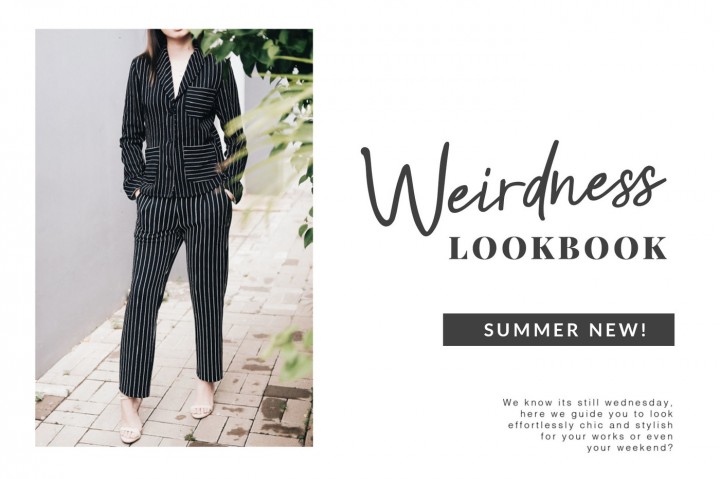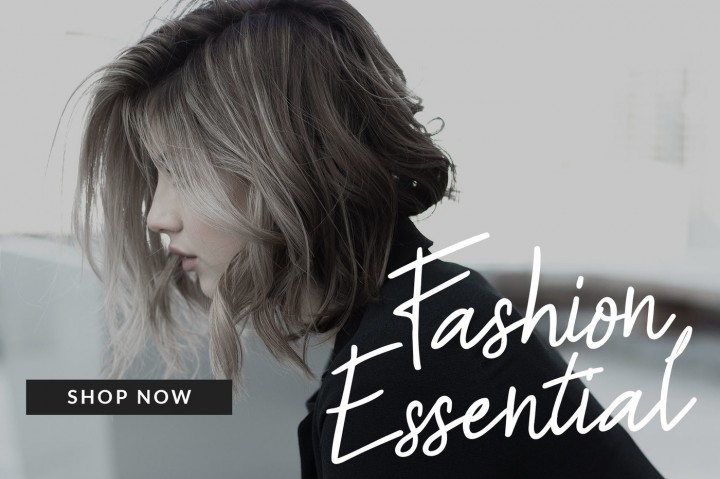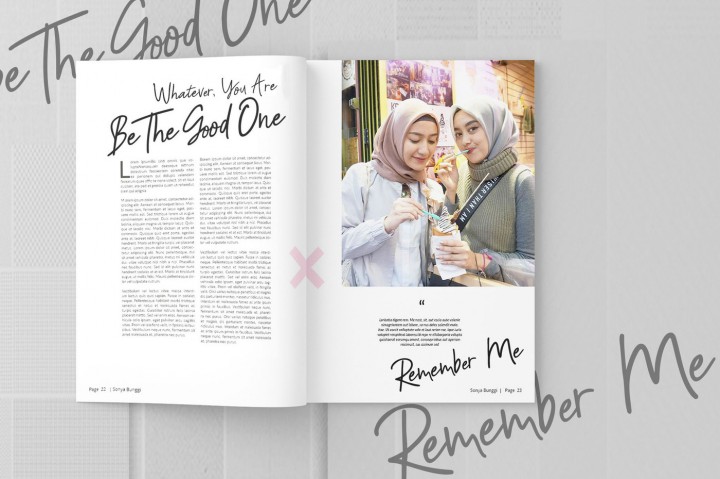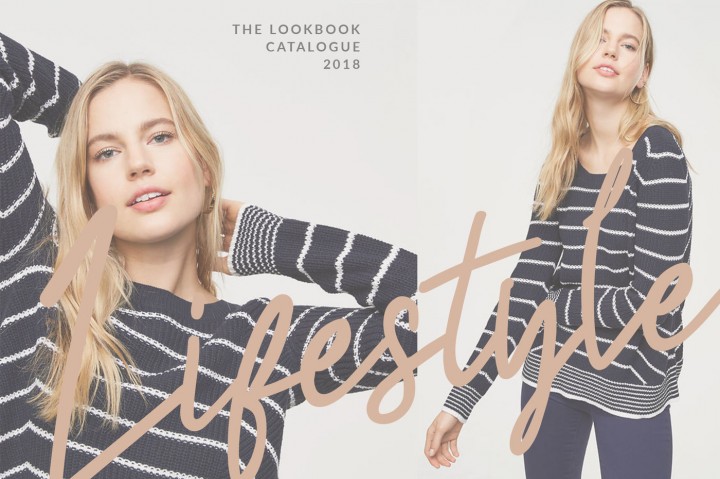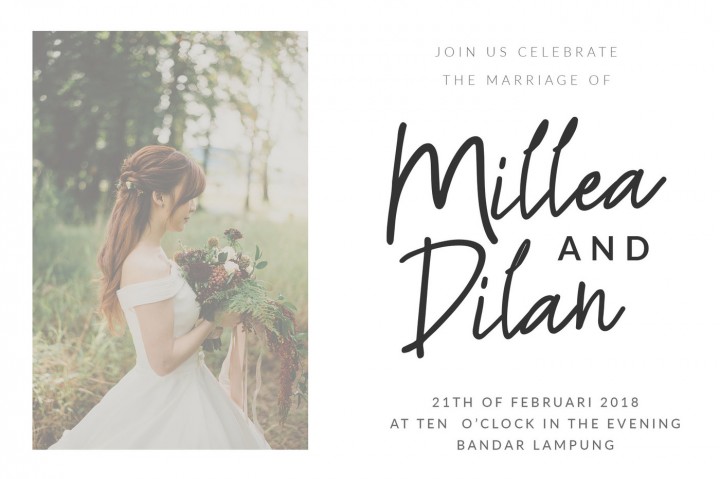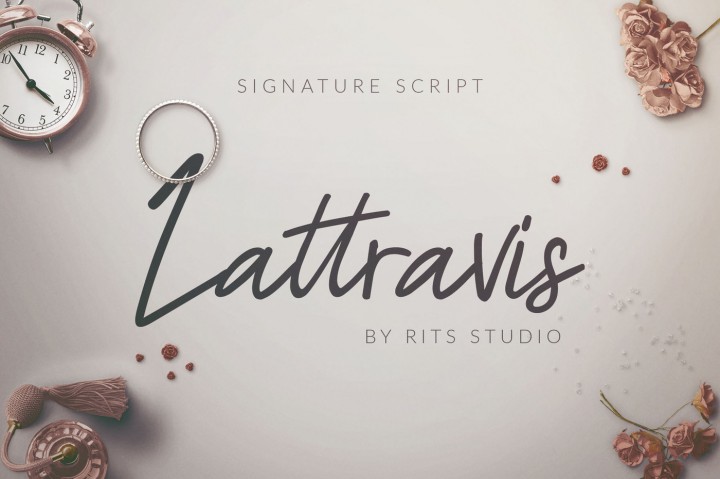
Lattravis
Lattravis Signature Script
Lattravis Script Font
Lattravis a unique handwritten font. my 3rd project font, Its unique flow and easy signature style makes it perfect use to quotes, logos, signature, labels, packaging design, blog headlines or simply use it in your next design project.